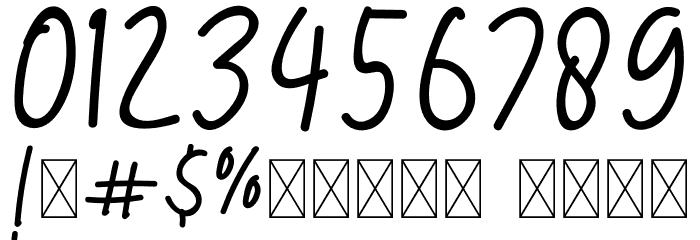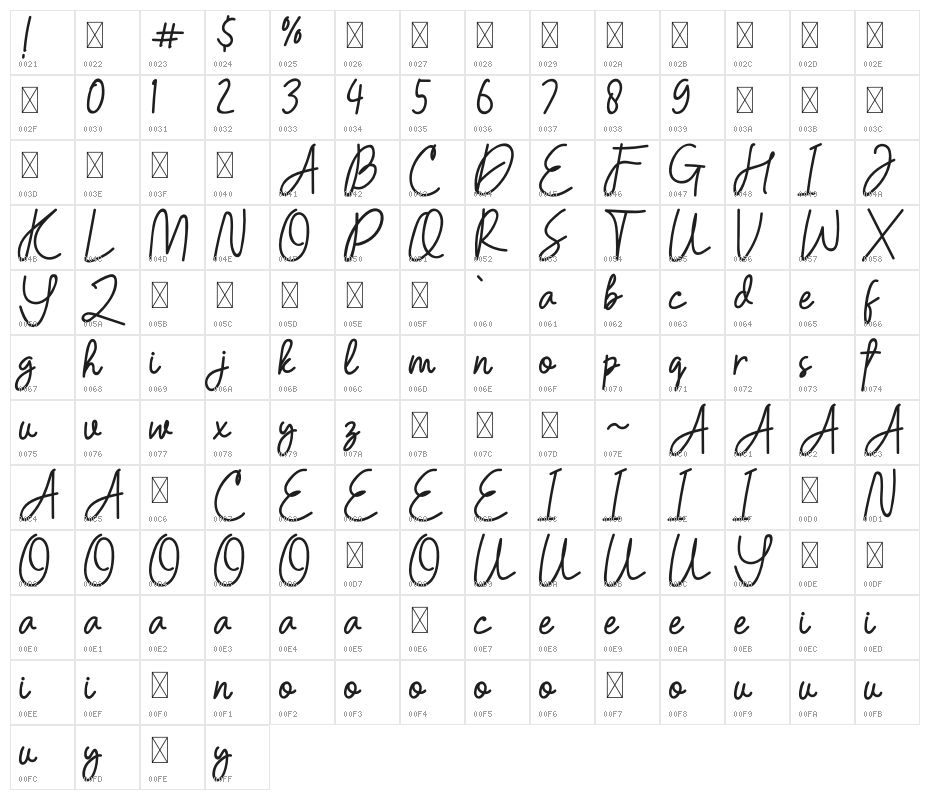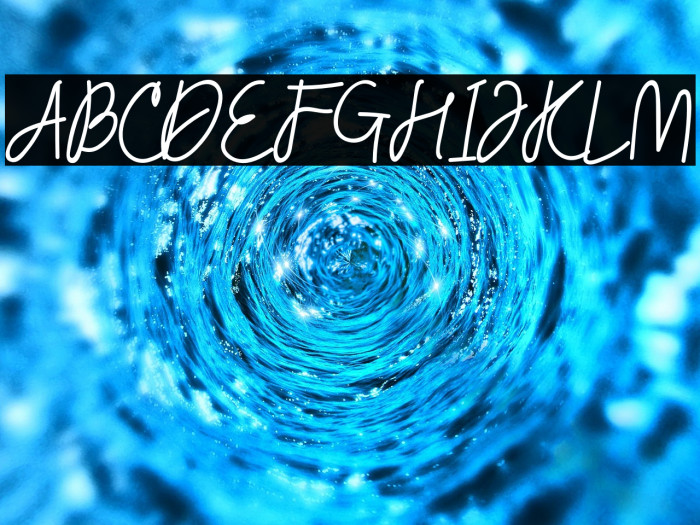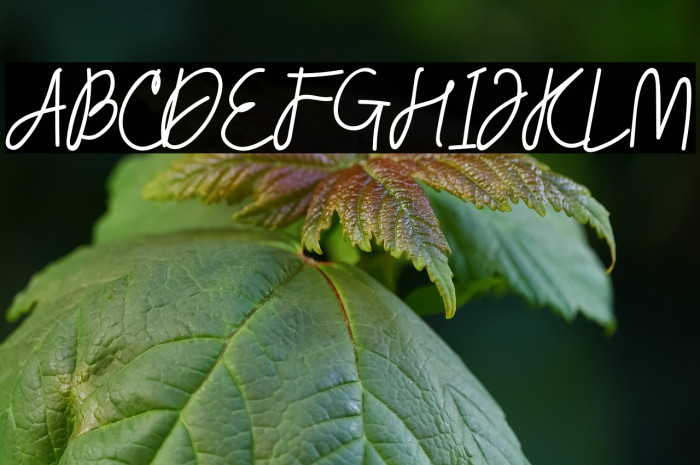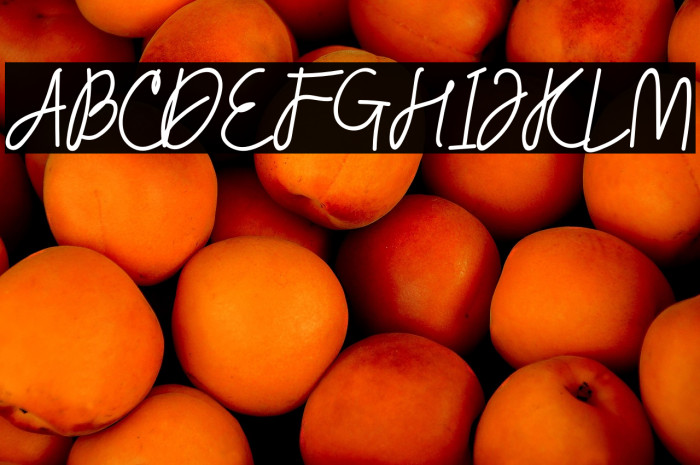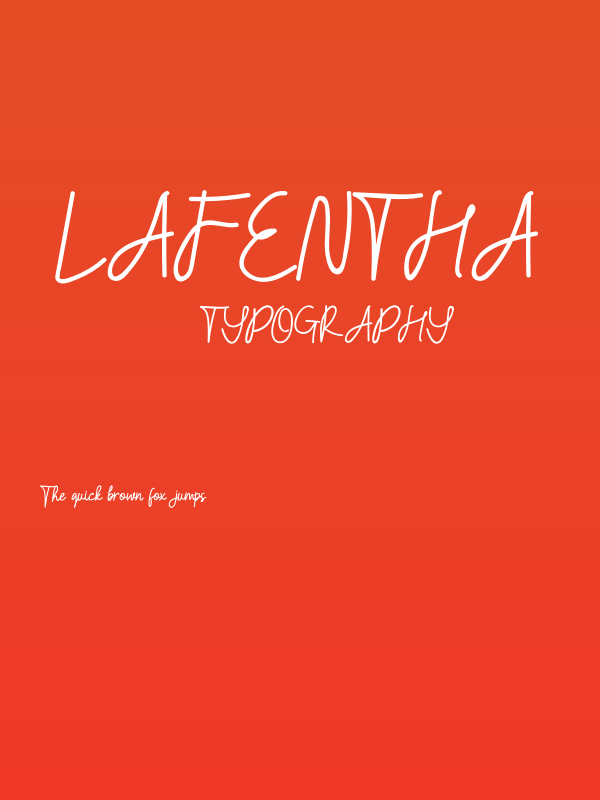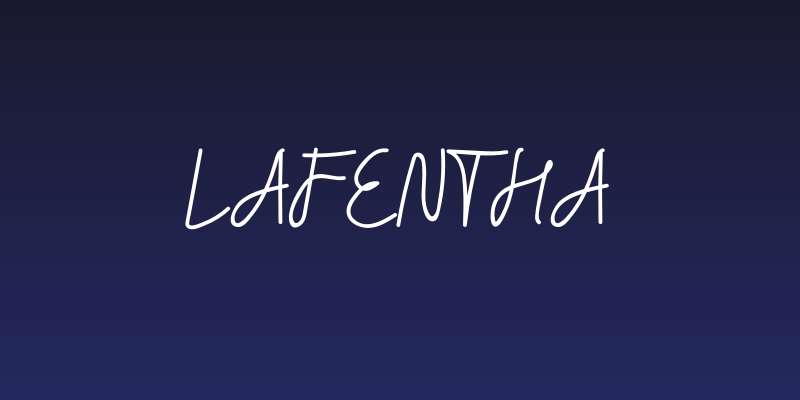
Lafentha Font
Lafentha Description
This font features a lively and fluid handwritten style, characterized by its smooth, flowing curves and slightly irregular strokes that mimic natural handwriting. The uppercase letters maintain a consistent height, while the lowercase letters exhibit a playful bounce, adding a dynamic and personal touch. The numerals are clear and legible, matching the overall casual aesthetic. Special characters are included, though some appear as placeholders, suggesting a focus on the alphabetic and numeric elements. The font's informal and approachable style makes it ideal for projects that require a personal or creative touch.
| Overall Style | Casual, Creative |
| Use Case | Headlines, Personal projects, Creative designs |
| Proposed Projects | Ideal for greeting cards, personal branding, social media graphics, and creative invitations. |